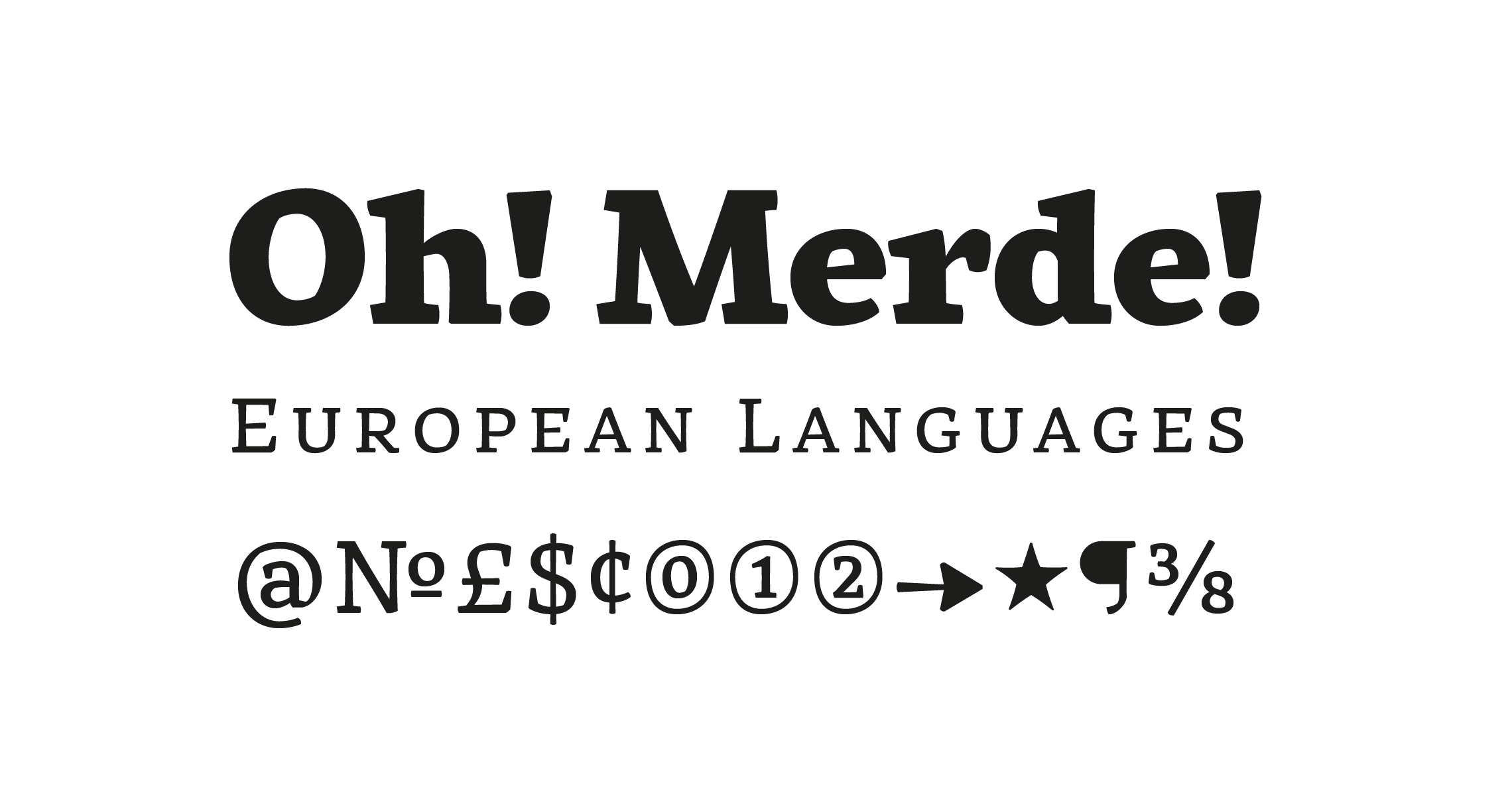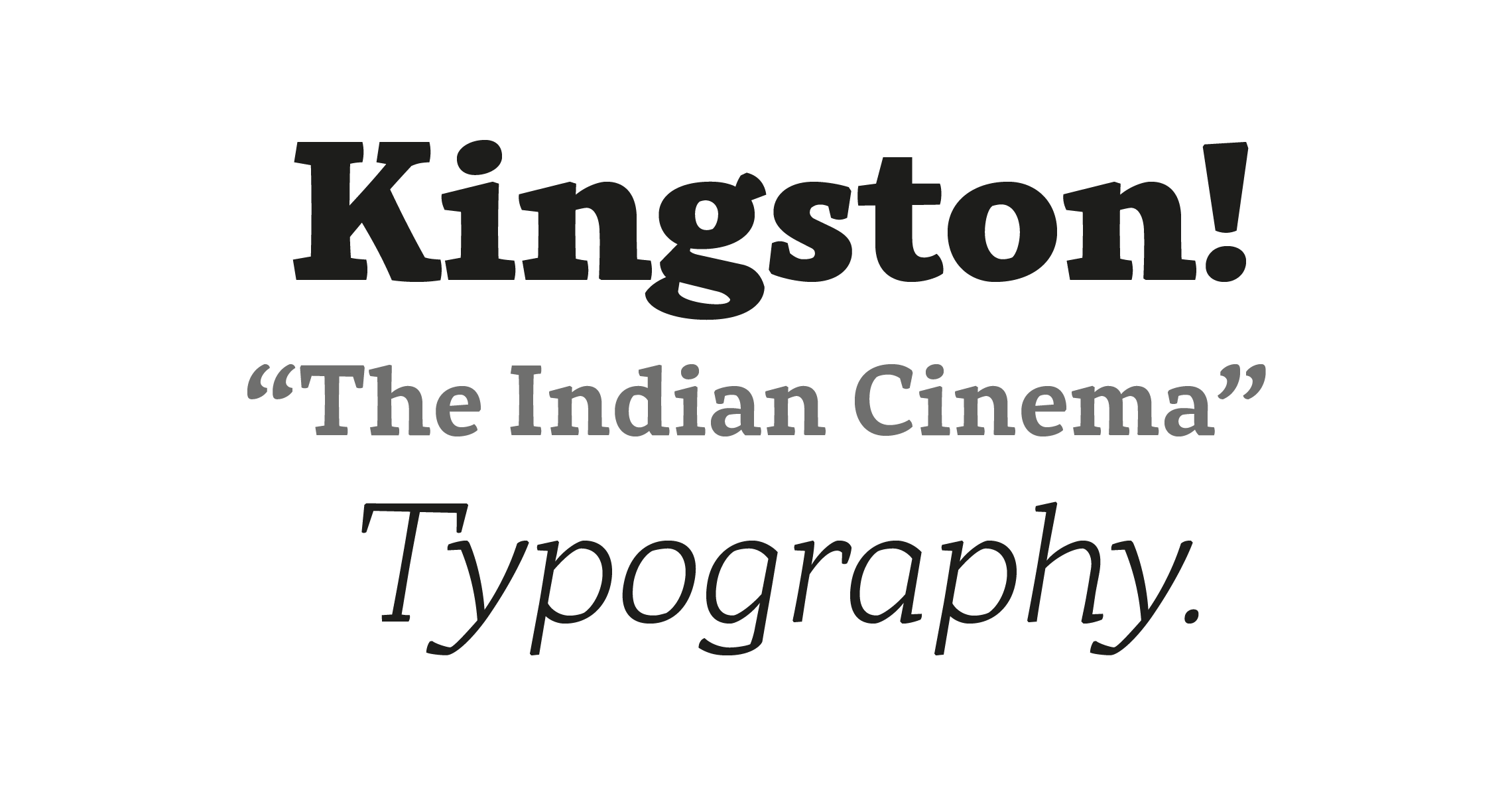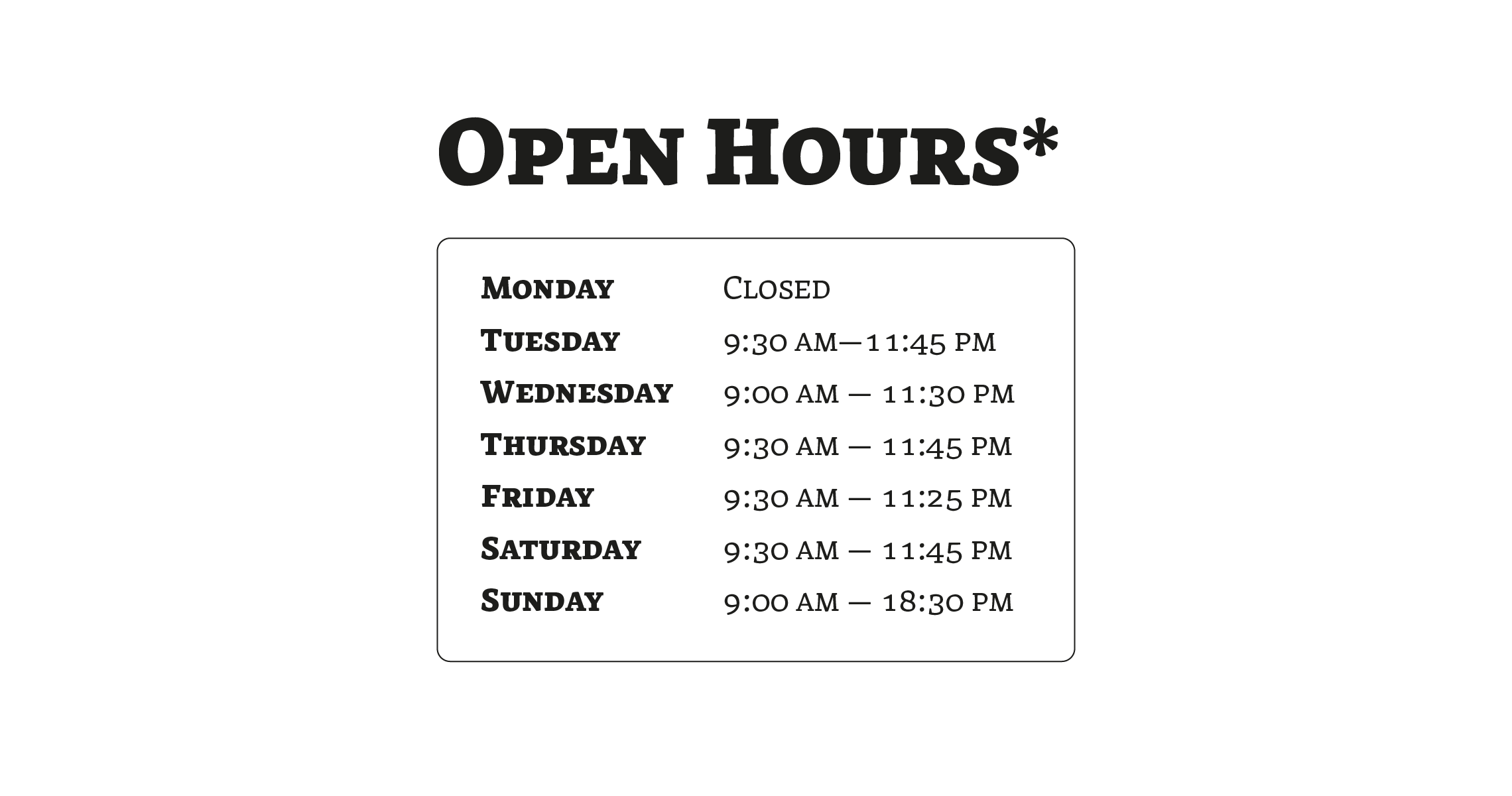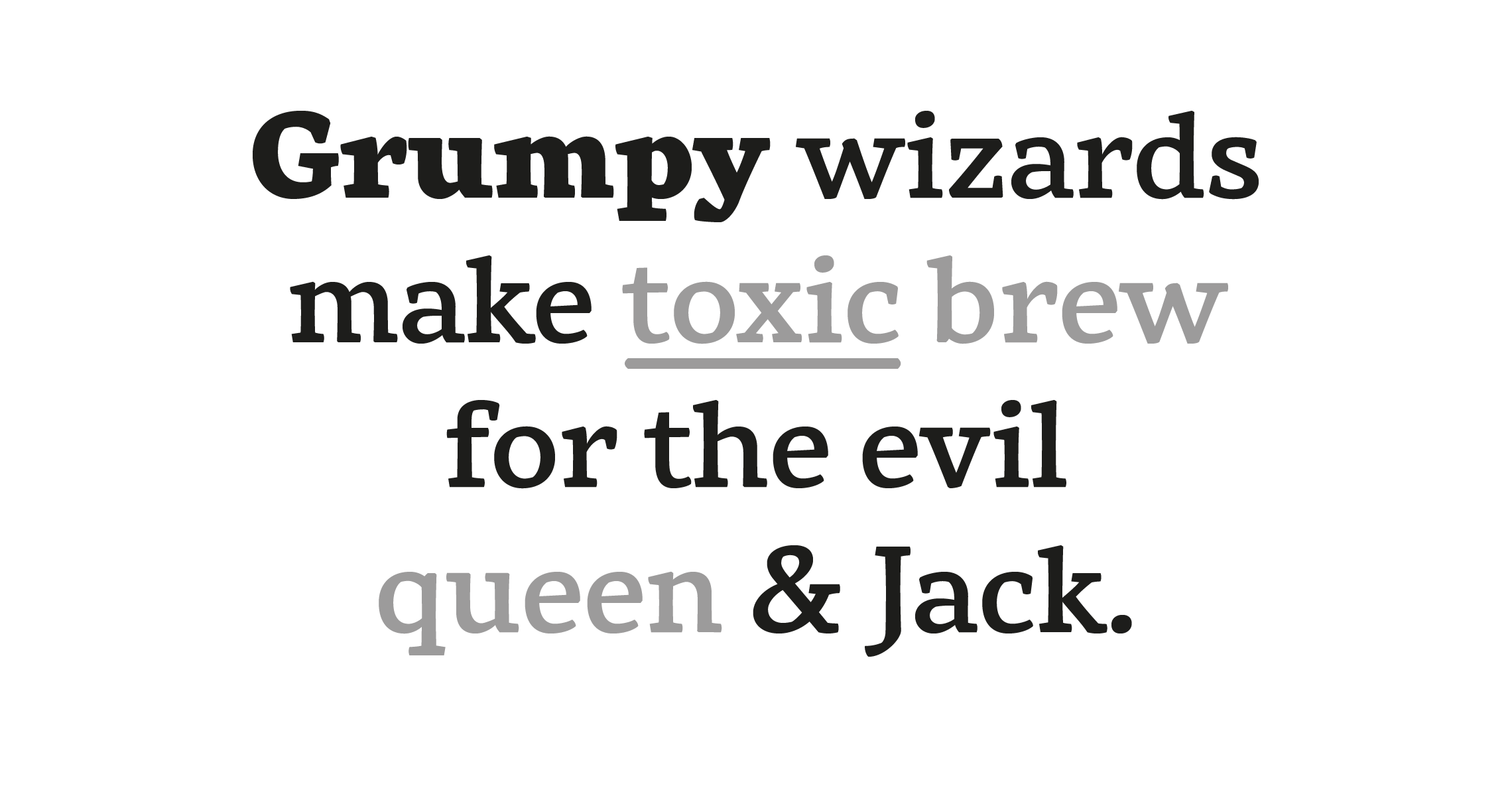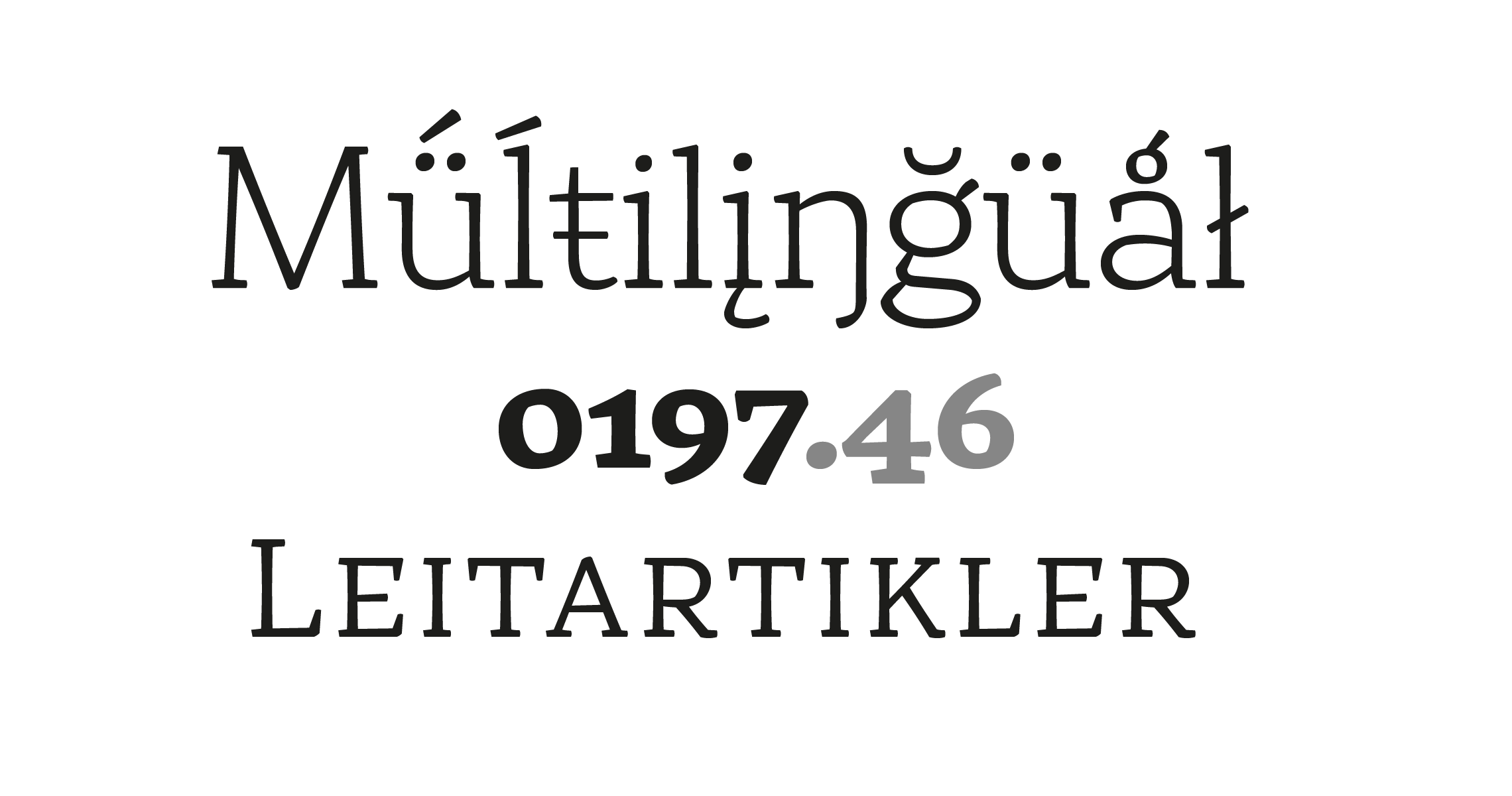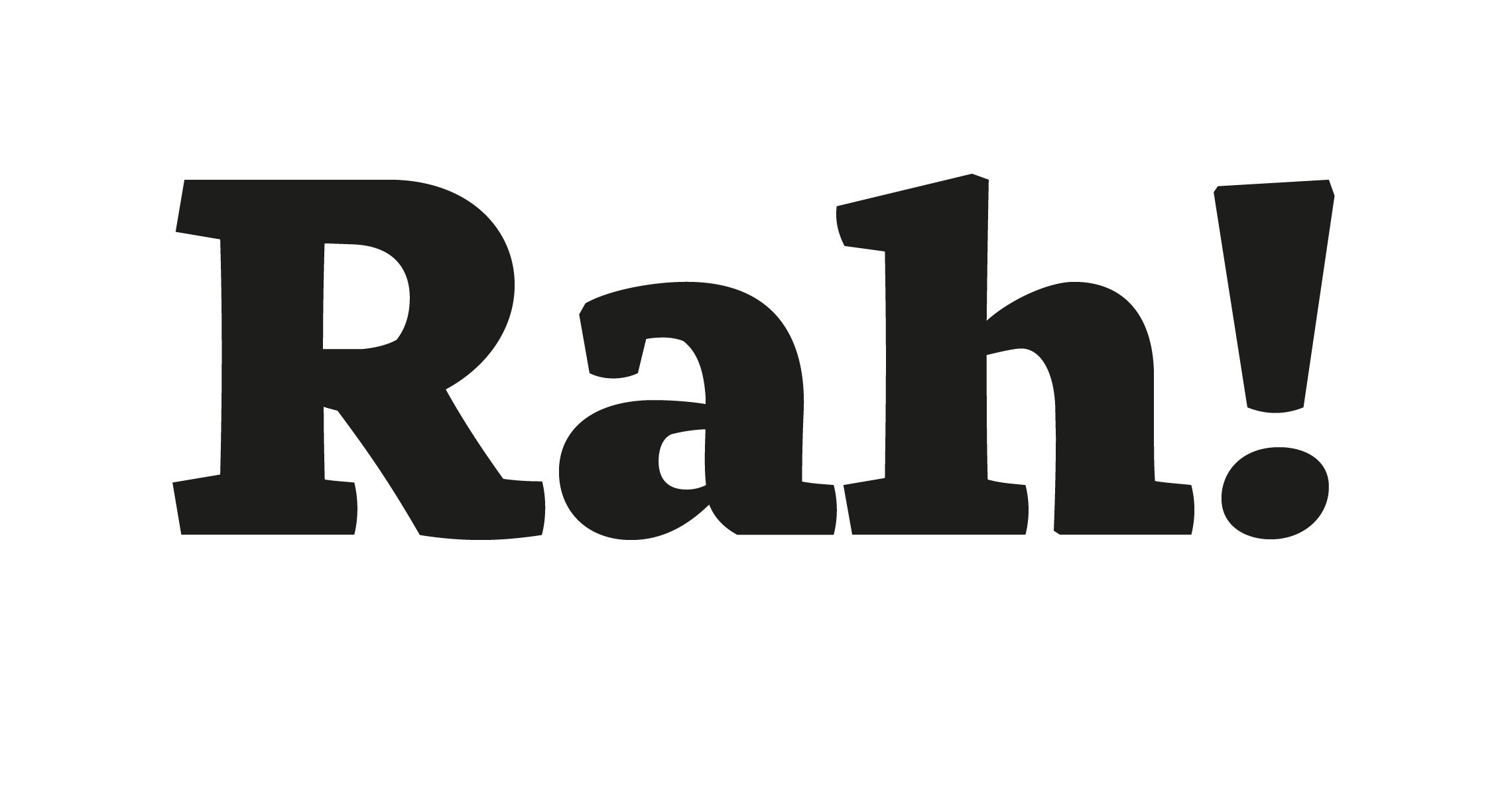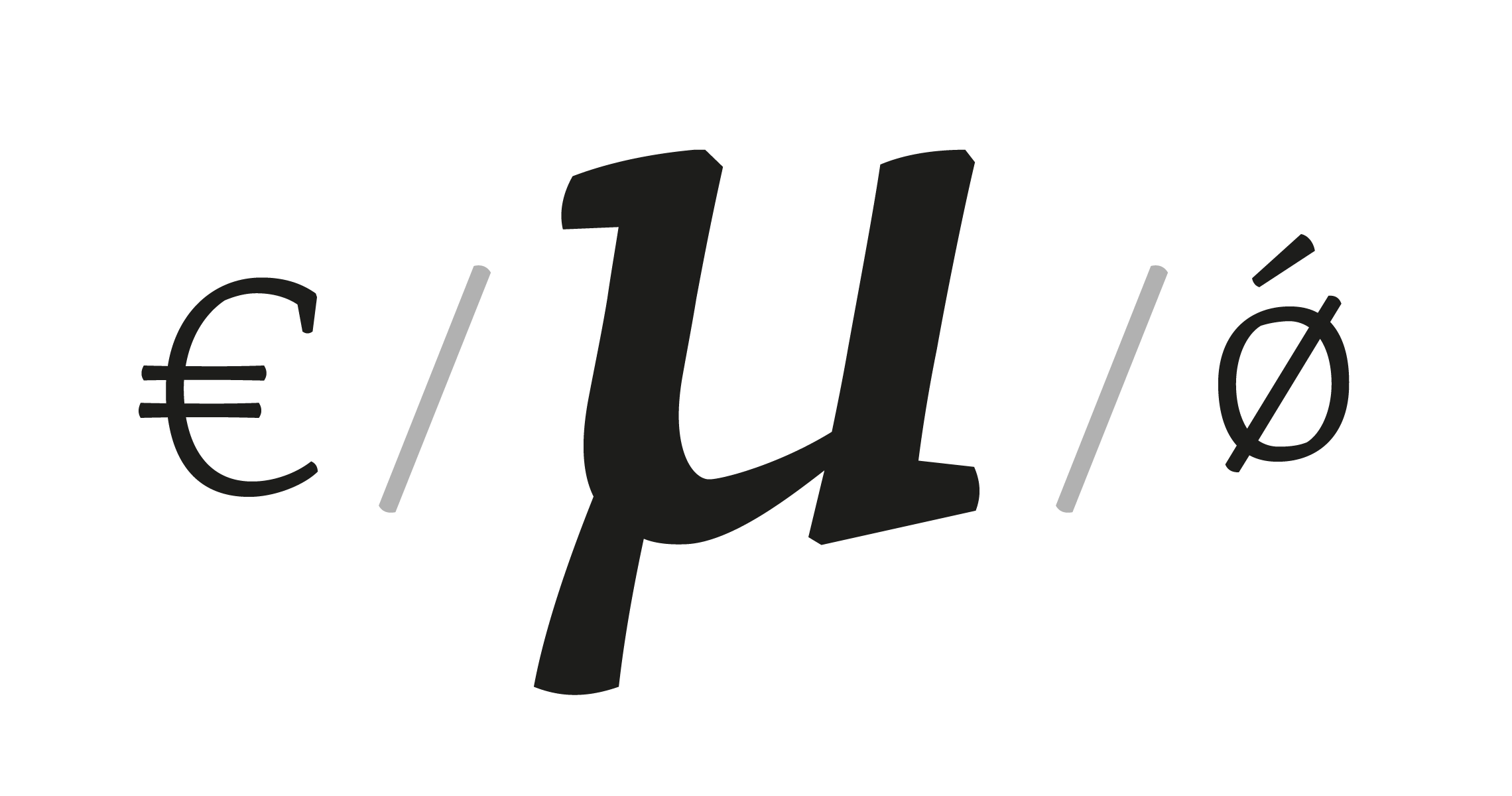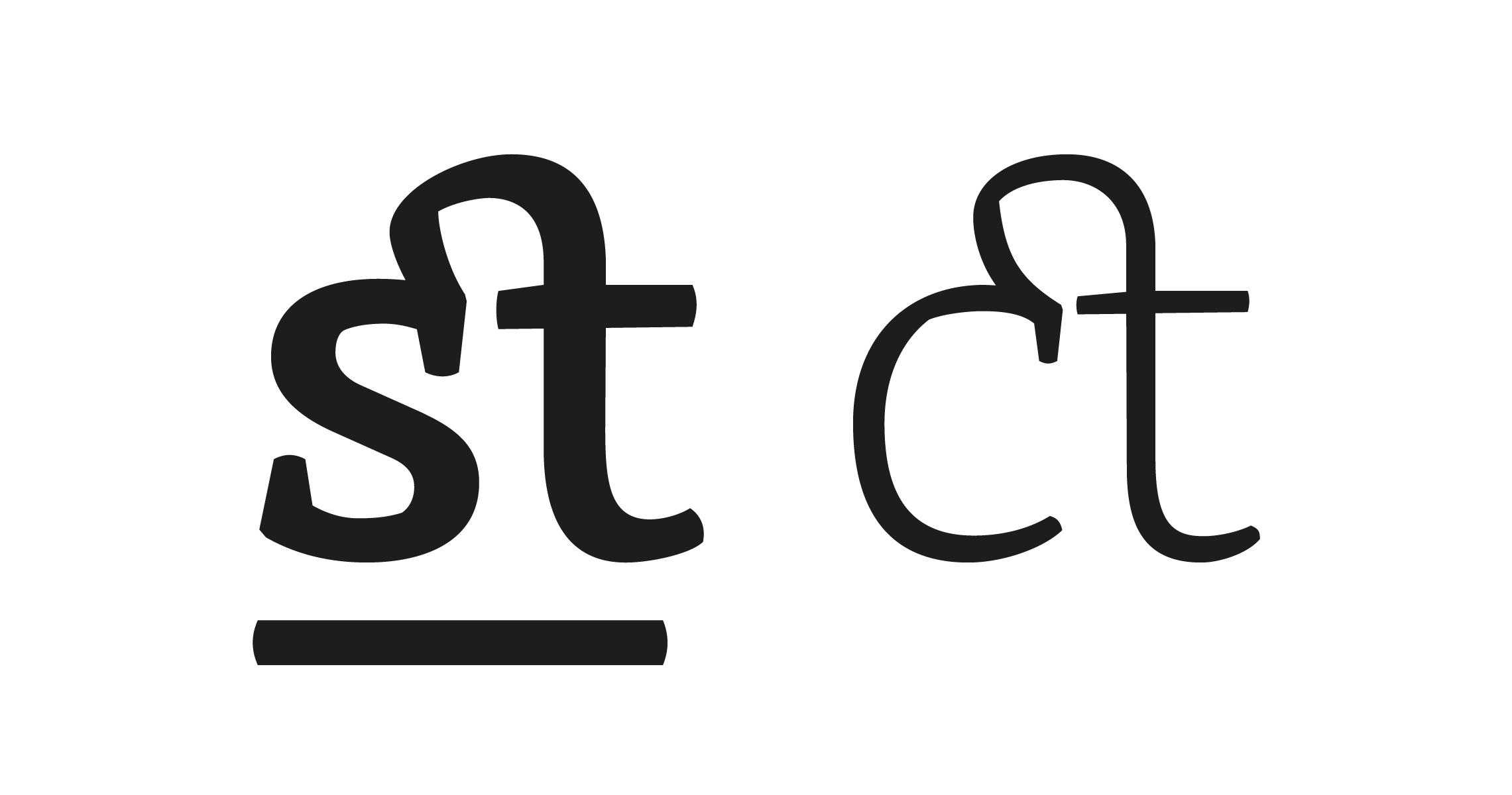
Rival Serif
A serif font family with contemporary distinctive signs
Rival is a modern serif font family inspired by characters drawn with a round nib, it has many distinctive signs such as broken curves, slightly curved downstrokes, curved diagonals, and curved, slanted axes. All these typographic tokens gives Rival a modern and contemporary aspect for all kinds of graphic projects. It comes in 7 weights with corresponding italics and it’s suited for multiple purposes including display and editorial use, especially for advertising, long text, packaging and branding.
Rival provides advanced typographical support with OpenType features such as small caps, ligatures, discretionary ligatures, old style figures, case-sensitive forms, slashed zero, fractions, and pro kerning. Rival Sans has an extended character set with over 970 glyphs. This family covers over 130 languages from Western Europe, Eastern Europe and Central Europe. In addition to all the features of its kind, Rival Sans is part of a very complete “type system” with style variants such as the sans serif version or the slab version.
With all these typefaces, you have 62 styles to make your own vibrant and professional graphics or web creations while maintaining consistency in your creations.
Rival Serif is available with one or more variants across typeface genres or styles.
Rival Serif is available in variable format